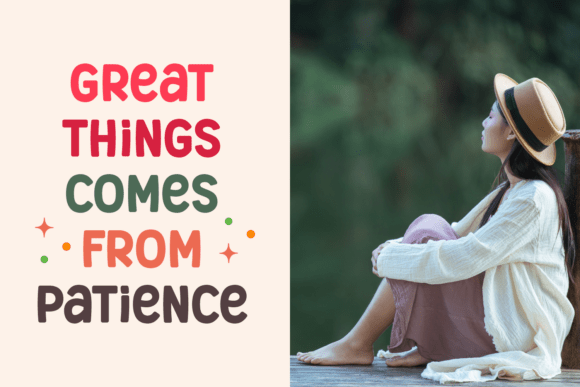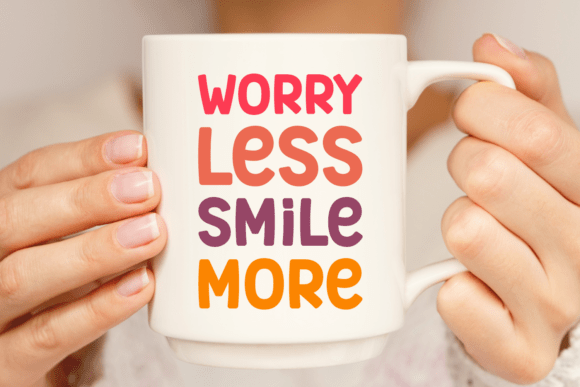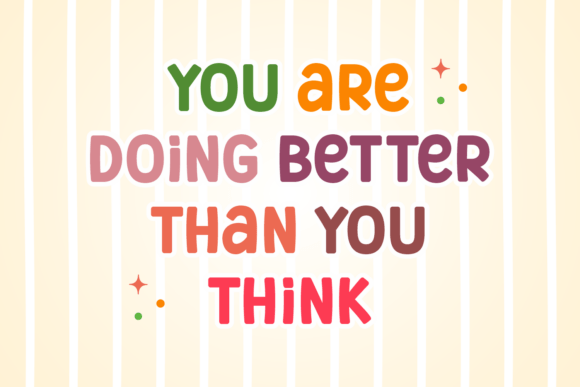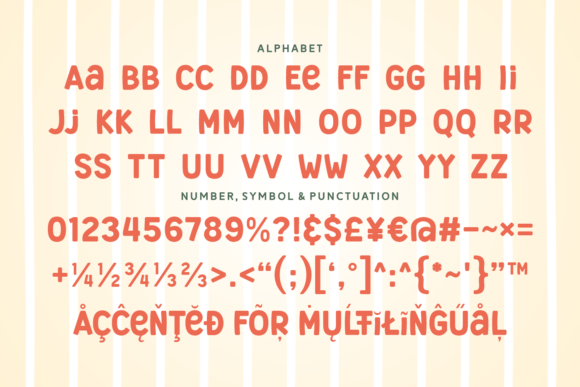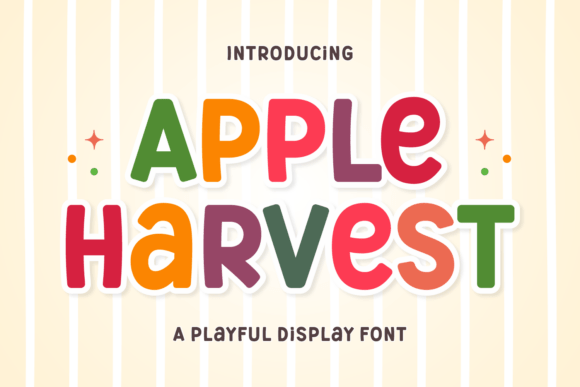
Introducing Apple Harvest Font: A Vibrant Display Font for Creative Designs
Are you looking for a font that can add a touch of warmth and joy to your designs? Look no further than Apple Harvest Font, a vibrant display font that is sure to make an impression. With its rounded shapes and playful personality, this typeface is perfect for designers and crafters who want to bring a fun and inviting feel to their projects.
What Makes Apple Harvest Font Special?
Apple Harvest Font is a unique and eye-catching typeface that is crafted to stand out in any font collection. Its rounded shapes and smooth lines give it a friendly and approachable feel, making it perfect for designs that require a personal touch. Whether you’re working on a creative project, designing a poster, or crafting a quote, Apple Harvest Font is sure to add a fresh and uplifting vibe.
Apple Harvest Font is ideal for designers and crafters who want to express their imaginative and creative design ideas. Its playful personality and vibrant feel make it perfect for a wide range of projects, including:
- Headlines and titles: Add a pop of personality to your headlines and titles with Apple Harvest Font’s bold and playful style.
- Posters and flyers: Create eye-catching posters and flyers that grab attention with Apple Harvest Font’s vibrant and energetic feel.
- Quotes and inspirationals: Add a touch of warmth and joy to your quotes and inspirationals with Apple Harvest Font’s rounded shapes and smooth lines.
- Creative projects: Bring a fresh and uplifting vibe to your creative projects, such as crafts, DIY tutorials, and art projects.
Key Features of Apple Harvest Font
Here are some of the key features that make Apple Harvest Font a must-have for designers and crafters:
- Rounded shapes: Apple Harvest Font features rounded shapes that give it a friendly and approachable feel.
- Playful personality: This typeface has a playful personality that is sure to add a touch of joy to any design.
- Vibrant feel: Apple Harvest Font has a vibrant feel that is perfect for designs that require a pop of personality.
- Easy to read: Despite its playful style, Apple Harvest Font is easy to read and understand, making it perfect for a wide range of projects.
Tips for Using Apple Harvest Font
Here are some tips for using Apple Harvest Font in your designs:
- Use it bold: Apple Harvest Font is perfect for bold and eye-catching designs. Use it to create headlines and titles that grab attention.
- Experiment with colors: Apple Harvest Font looks great in a wide range of colors. Experiment with different colors to find the perfect combination for your design.
- Pair it with other fonts: Apple Harvest Font pairs well with other fonts, including serif and sans-serif fonts. Experiment with different font combinations to find the perfect look for your design.
| Font Name | Apple Harvest Font |
| Author | Eightde |
Apple Harvest Font is a vibrant display font that is sure to add a touch of warmth and joy to any design. With its rounded shapes, playful personality, and vibrant feel, this typeface is perfect for designers and crafters who want to bring a fun and inviting feel to their projects. Whether you’re working on a creative project, designing a poster, or crafting a quote, Apple Harvest Font is a must-have font that is sure to make an impression.